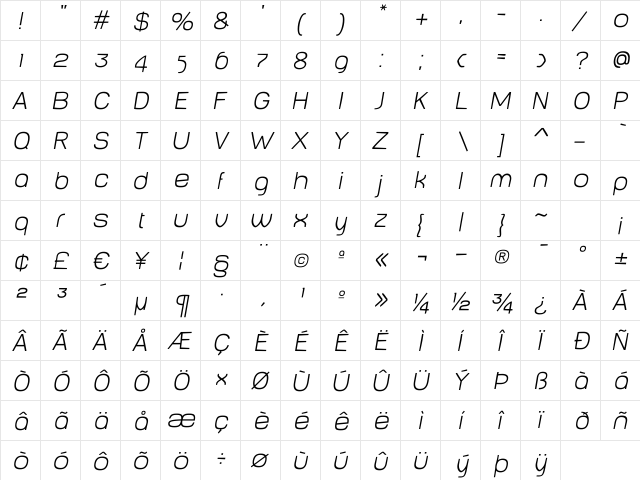
Baby MineThin Oblique Regular Font Preview
Design Context for Baby MineThin Oblique Typeface
Baby MineThin Oblique takes a measured approach to typography — its balanced proportions and neutral character make it a reliable workhorse for both digital and print work. The dynamic lean of this cut emphasises speed and emphasis in any layout. Its slender proportions lend an understated elegance to any composition.
Pro Tip: Try Baby MineThin Oblique for annotation and caption copy alongside an upright companion — the contrast in angle creates a dynamic but ordered typographic system.